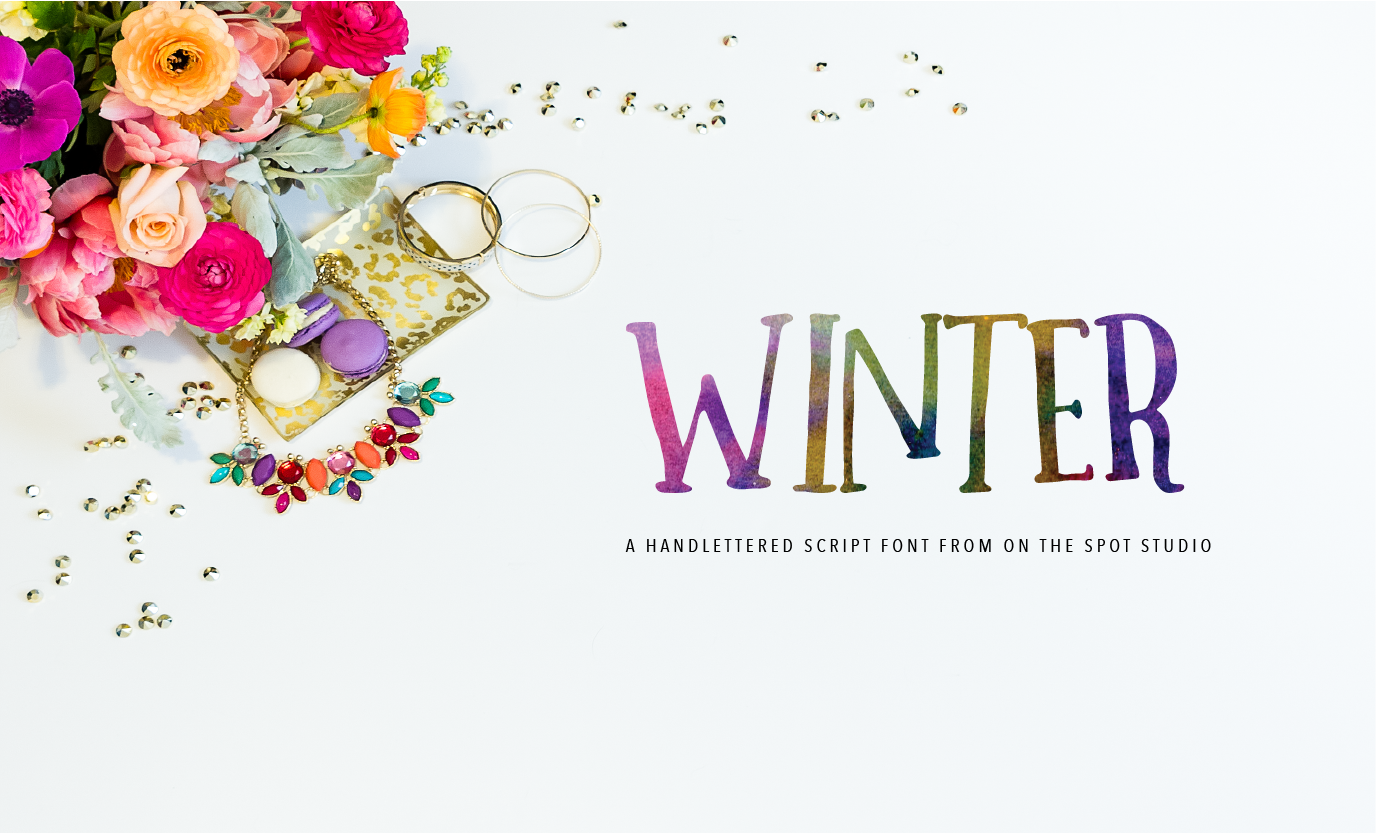
Winter - A Quirky All Caps Font
Fun and quirky, maybe even a little cranky. Winter includes all uppercase letters ... no punctuation, no numbers. 72 total Glyphs in this fun little font.